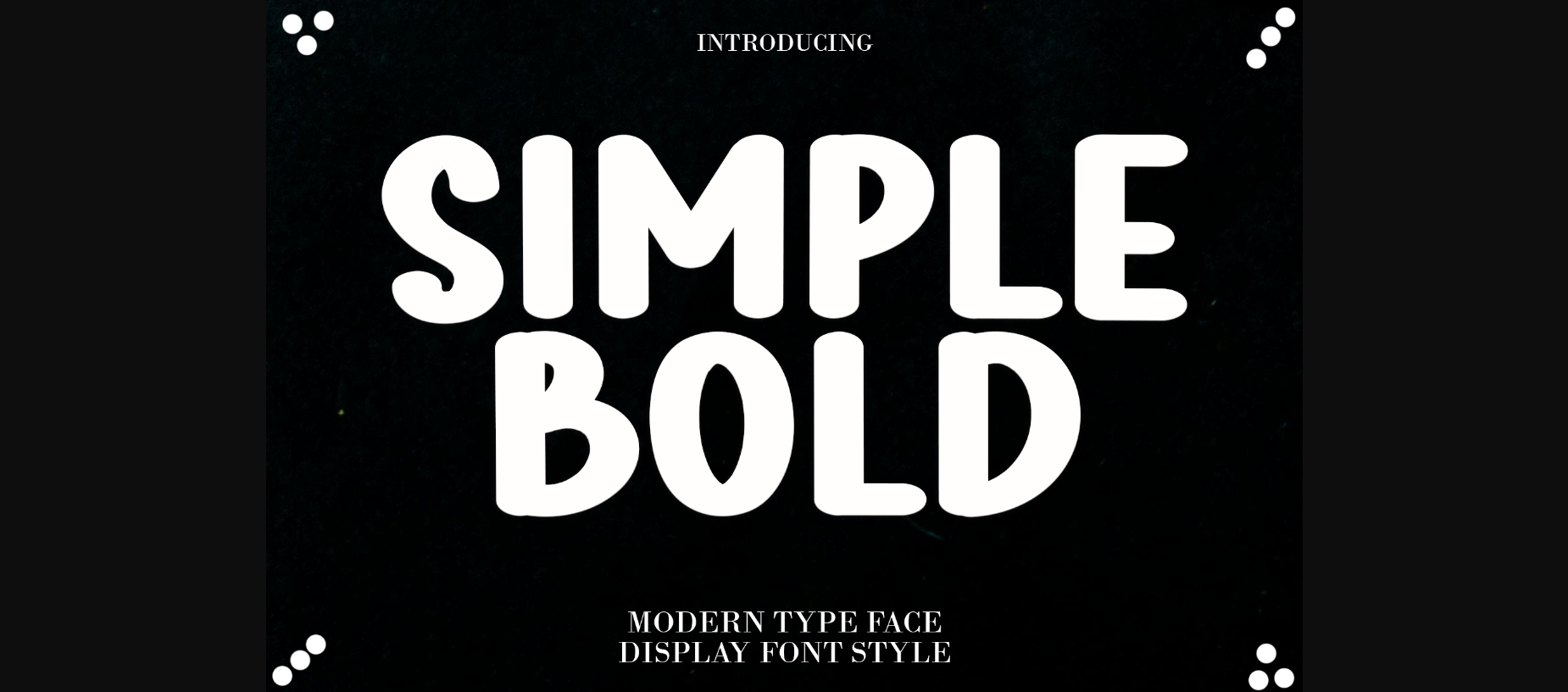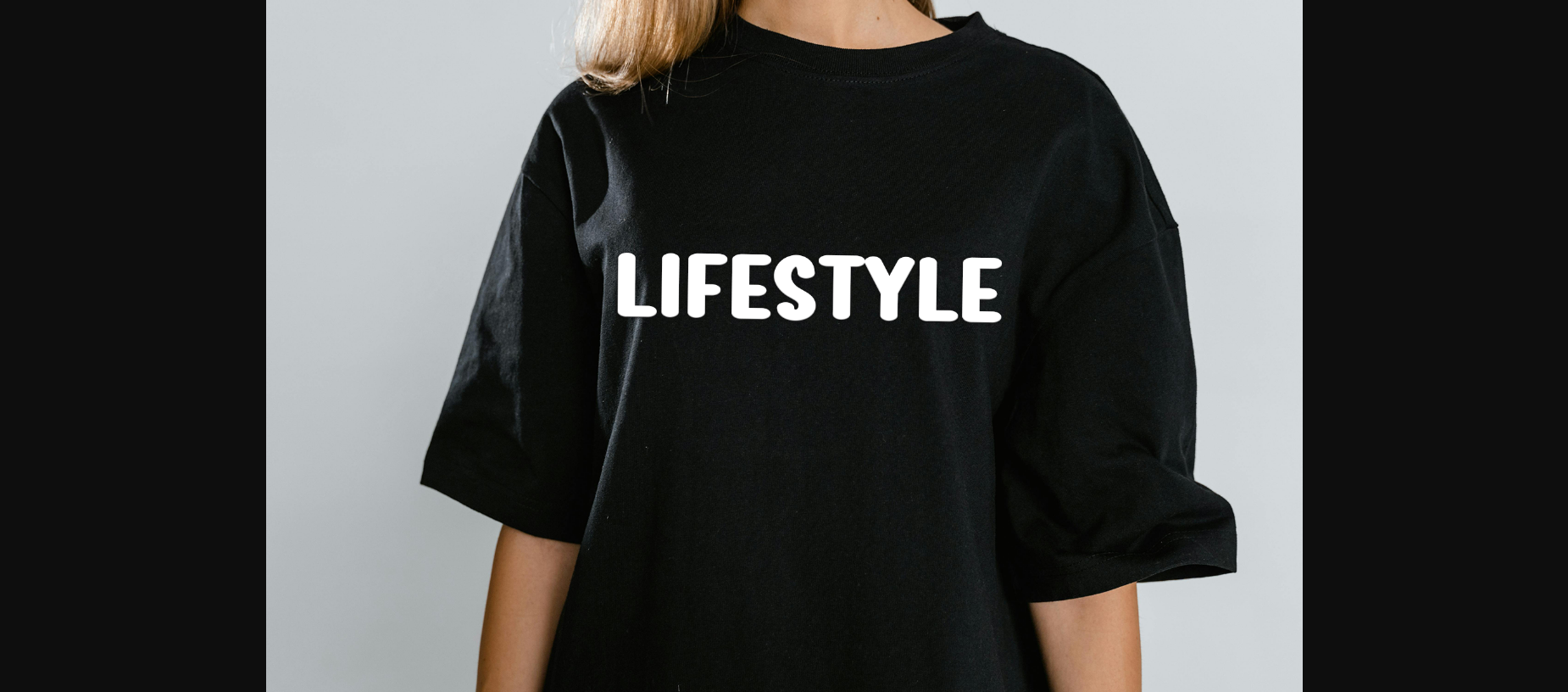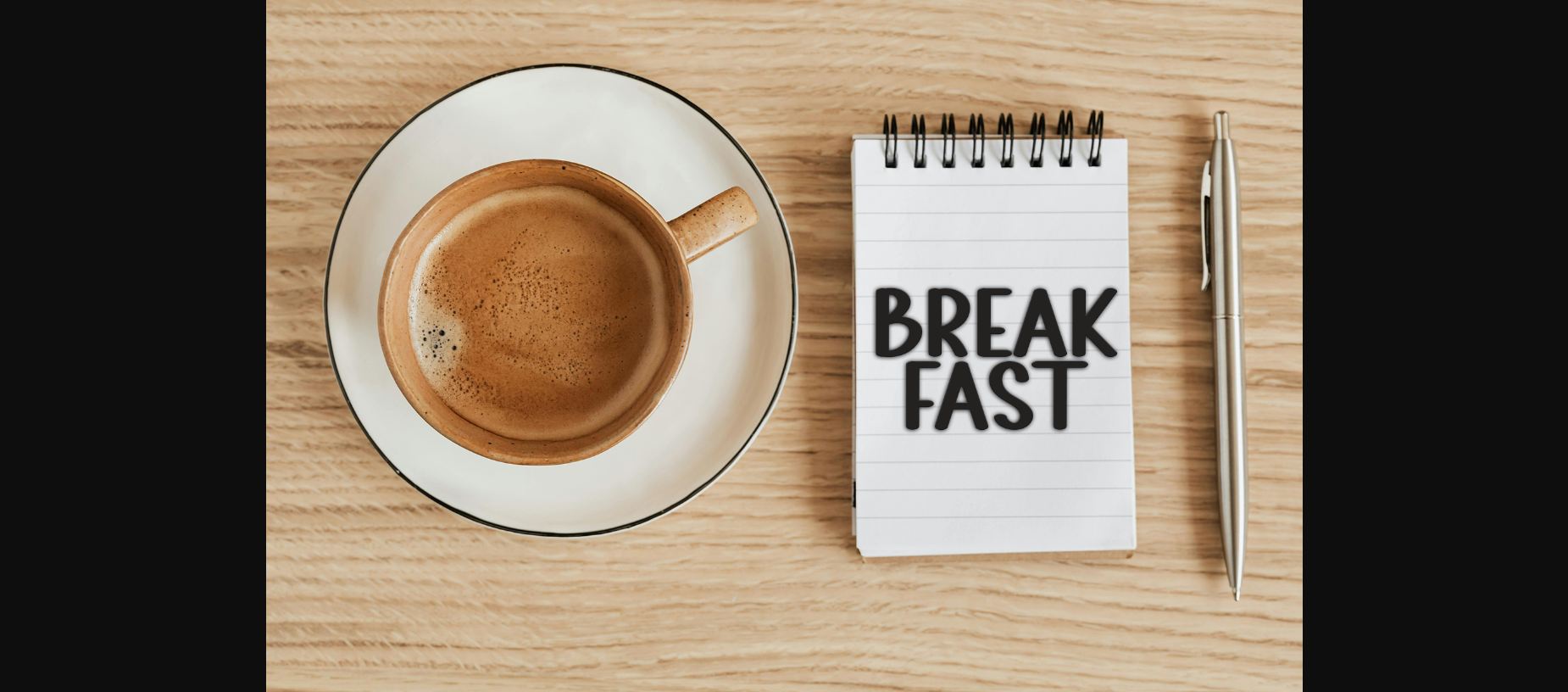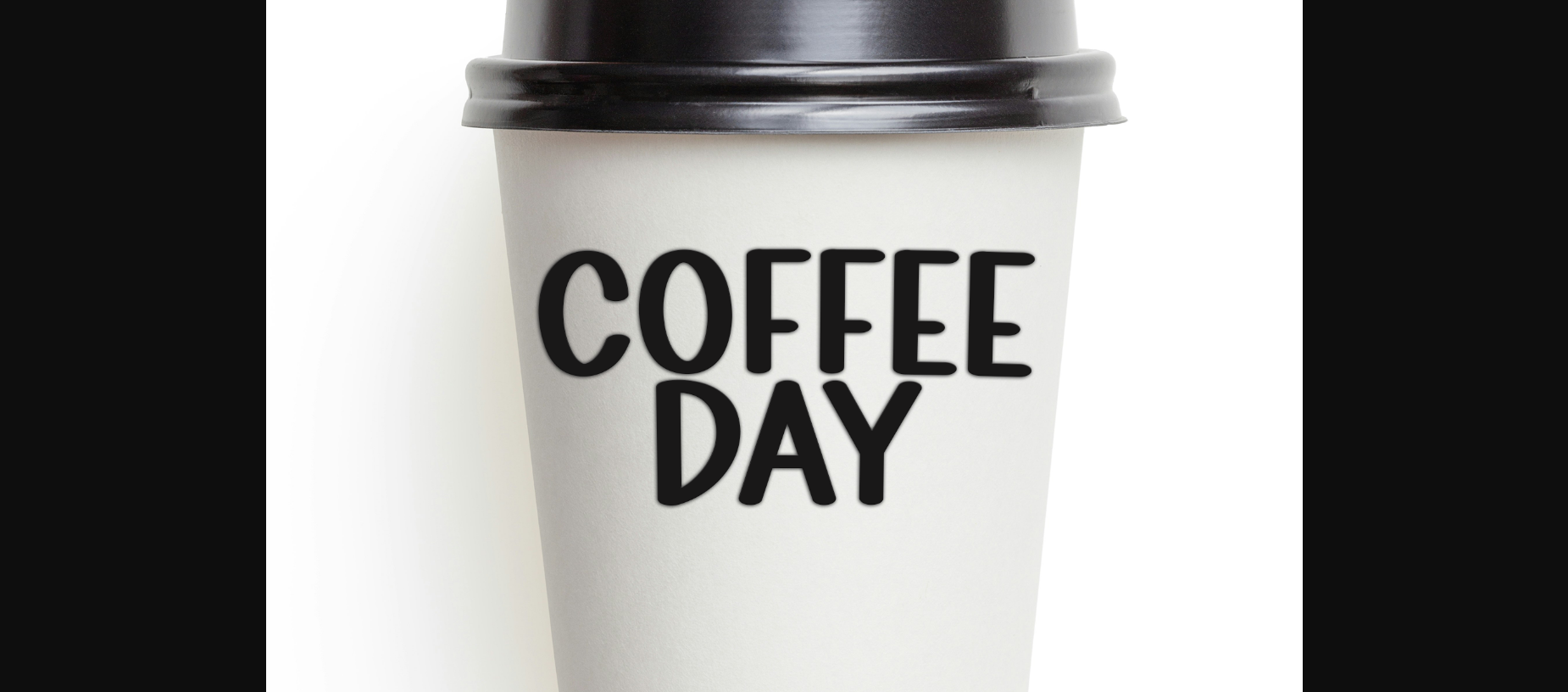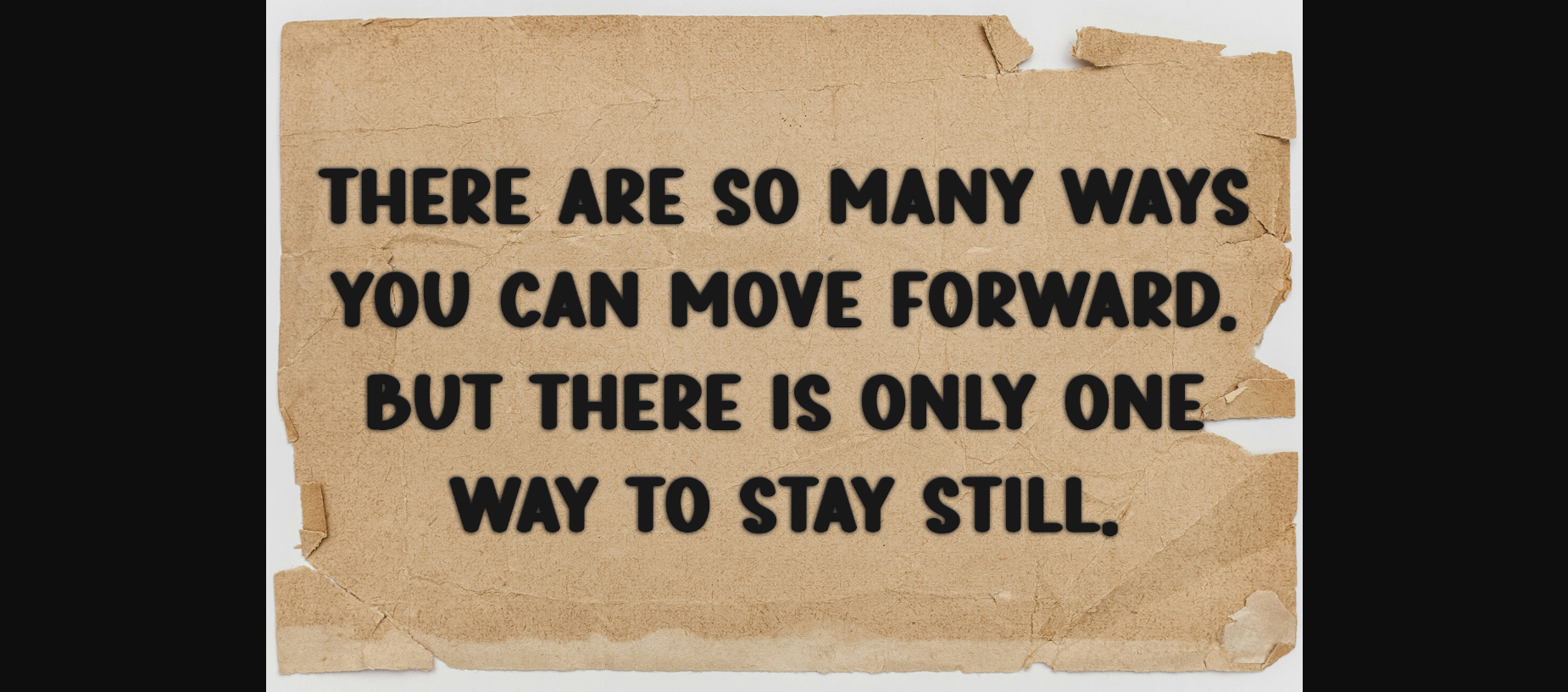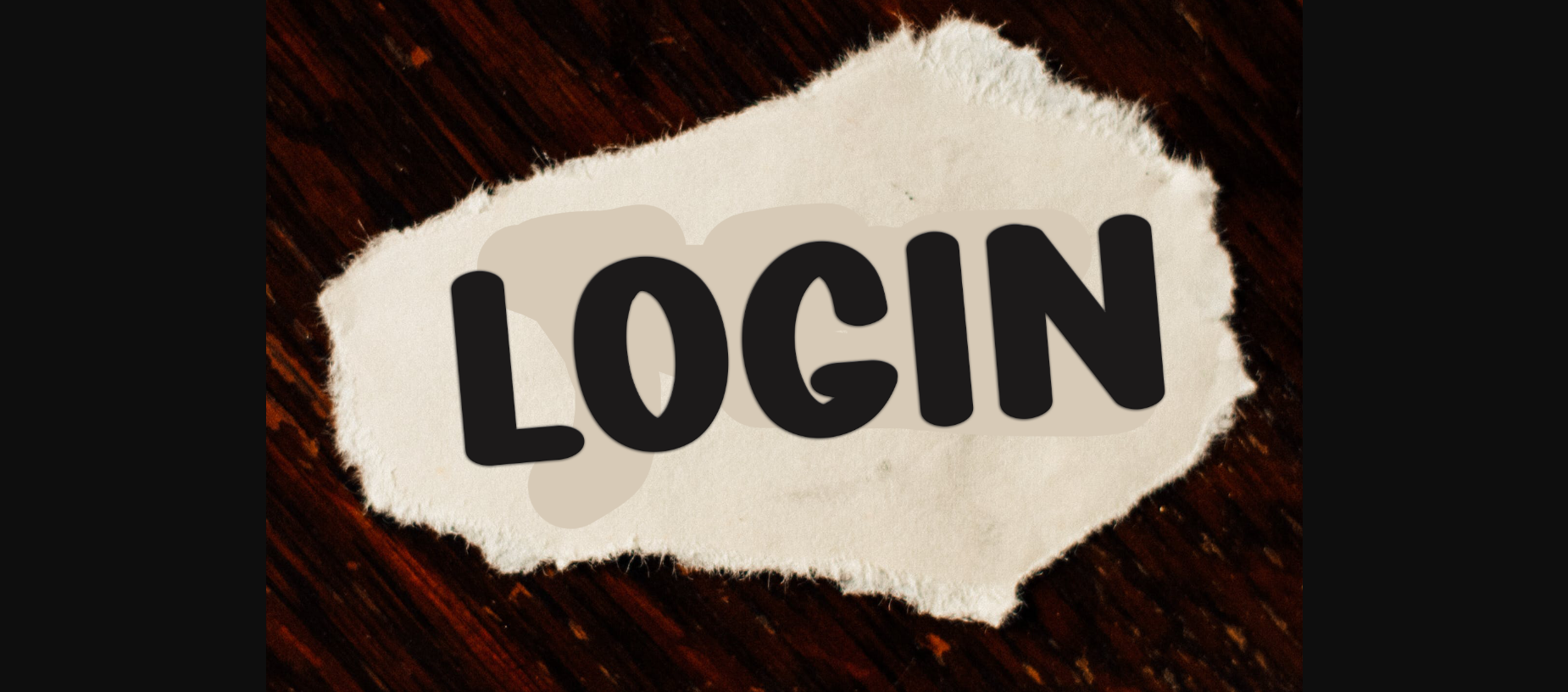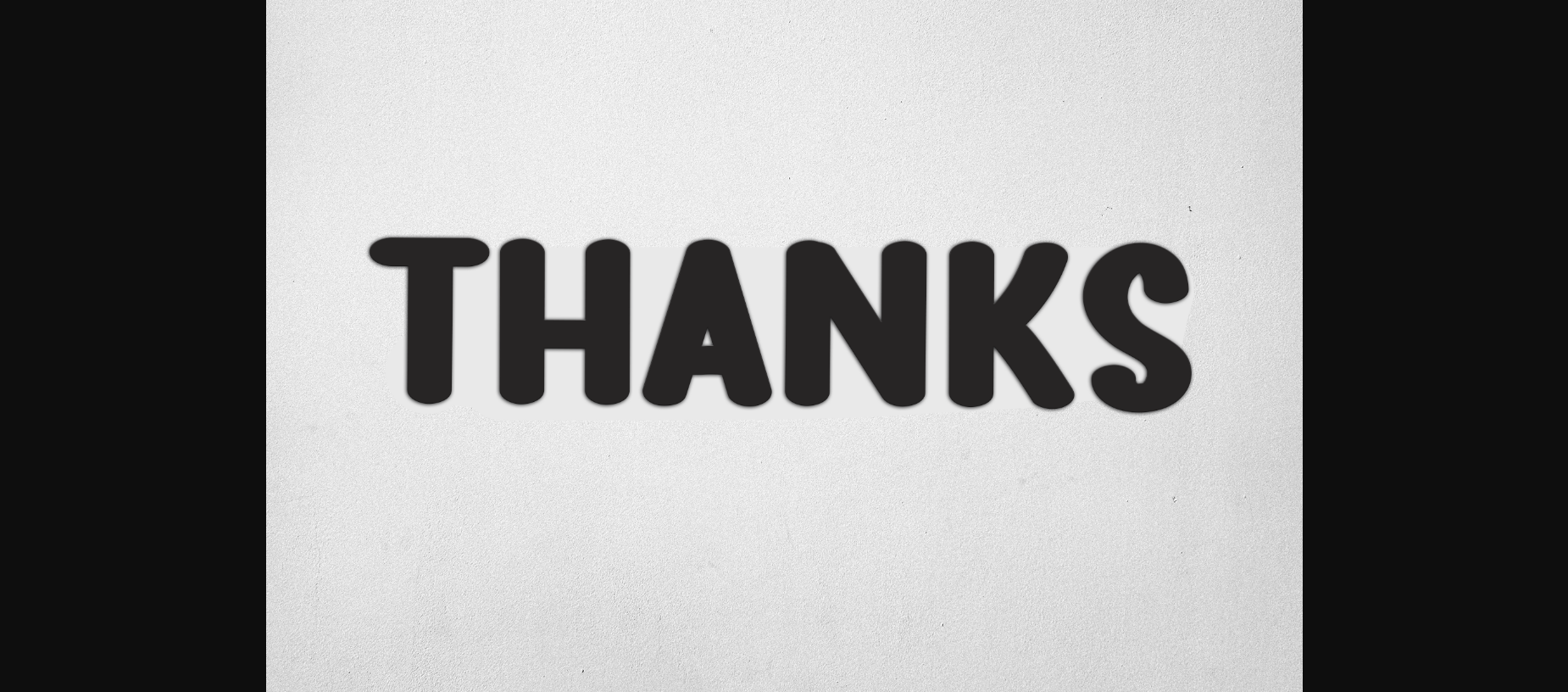
Simple Bold is a sweet and friendly sans-serif font. Its natural and unique style makes it incredibly fitting to a large pool of designs. The only limit is your imagination.